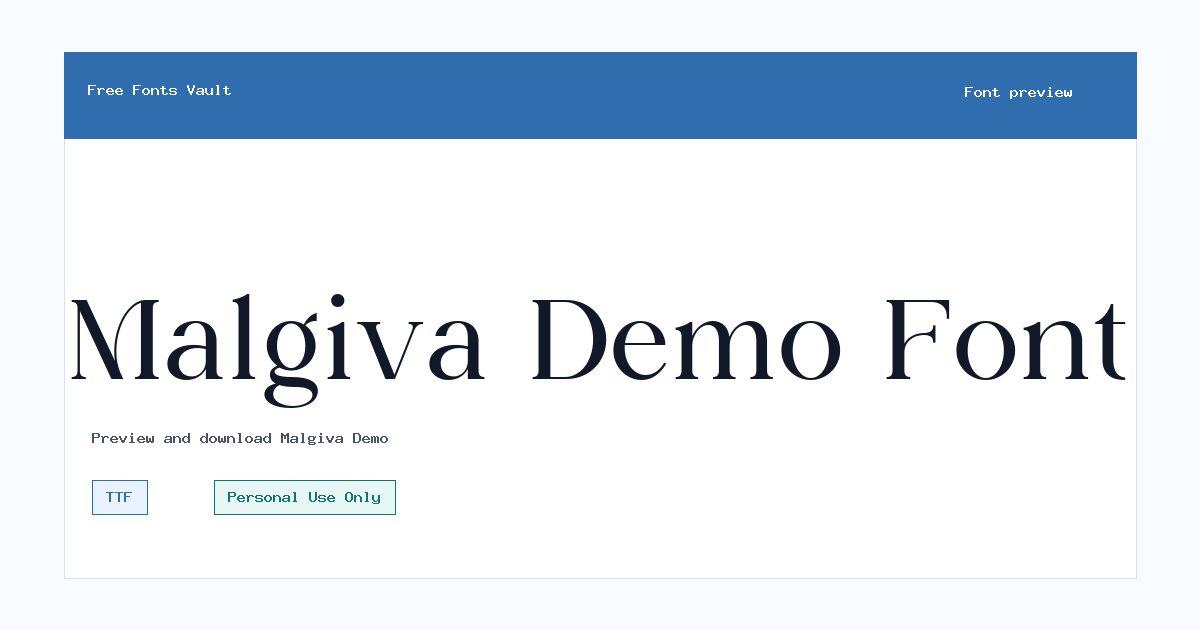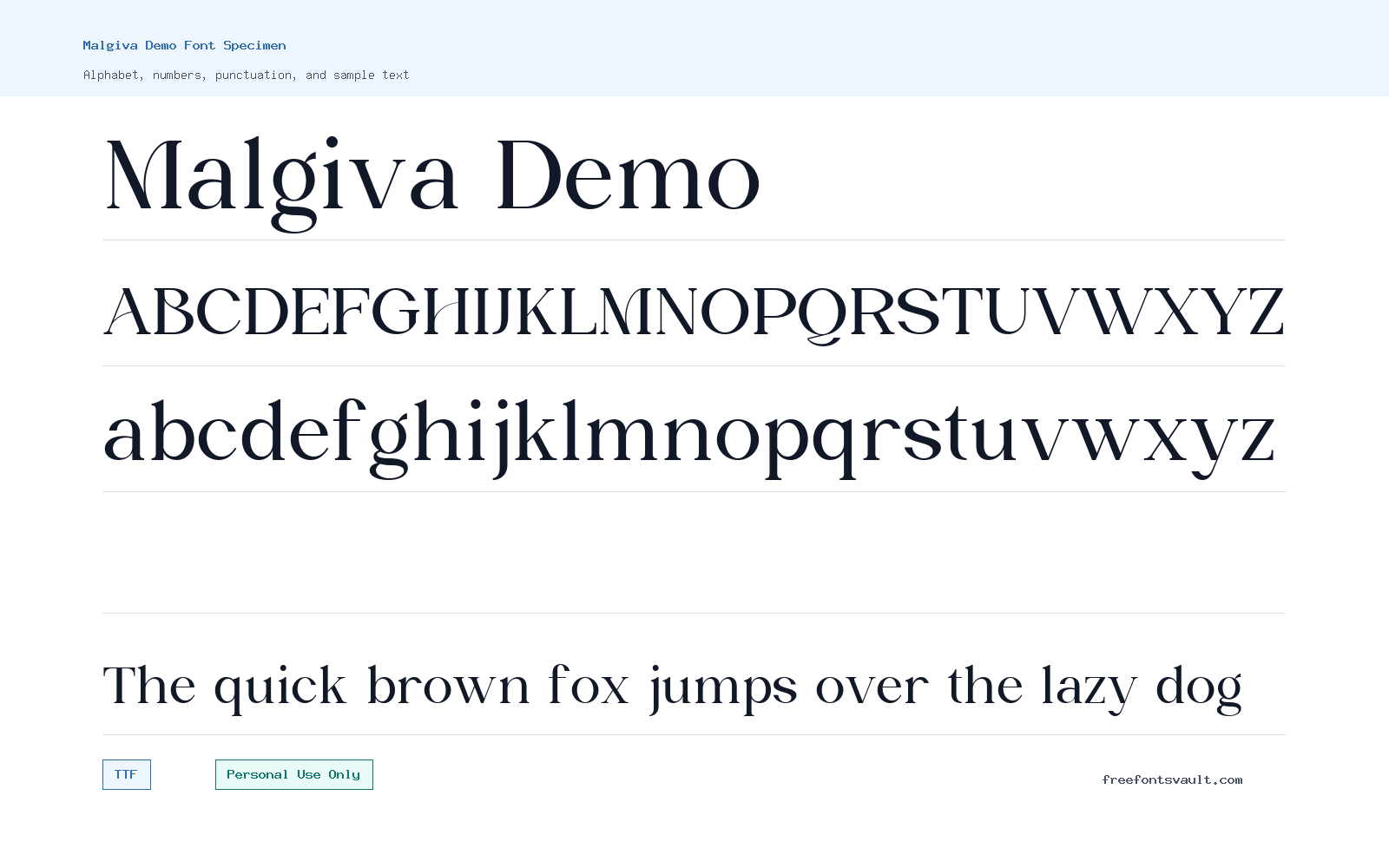
Malgiva Demo
- Designer Ragamkata Studio
Malgiva Demo font.
Malgiva Demo is a personal-use serif font from Ragamkata Studio. It is best treated as a display-focused typeface for testing headlines, logos, posters, and brand mockups before deciding whether it fits a larger design system.
Malgiva Demo is a Regular TTF font with a normal style and 400 weight. The name and license text identify it as a serif font, so it is a good option to try when you want letterforms with a more editorial, refined, or classic tone than a plain sans serif. Because this is a demo font, use it first for visual testing: type your project name, a few short headlines, and a sample tagline in the preview box to see how the spacing, proportions, and punctuation feel at real sizes.
- Serif demo font suited to previewing display typography ideas
- Practical for short headings, logo drafts, posters, and branding mockups
- Better for testing visual tone than for setting long paragraphs
- Logo concepts and wordmark testing
- Website hero headings and landing page mockups
- Packaging drafts, labels, and presentation boards
- Invitation, editorial, or social media headline designs
- Moodboards where a serif display style is needed
What kind of font is Malgiva Demo?
The license text identifies it as a serif font. It is best tested as a display font for short text such as headings, logo drafts, posters, and mockups.
Who designed Malgiva Demo?
Malgiva Demo is credited to Ragamkata Studio.
Is Malgiva Demo good for body text?
It is safer to use it for short display text first. For paragraphs, test readability carefully and consider pairing it with a clean body font.